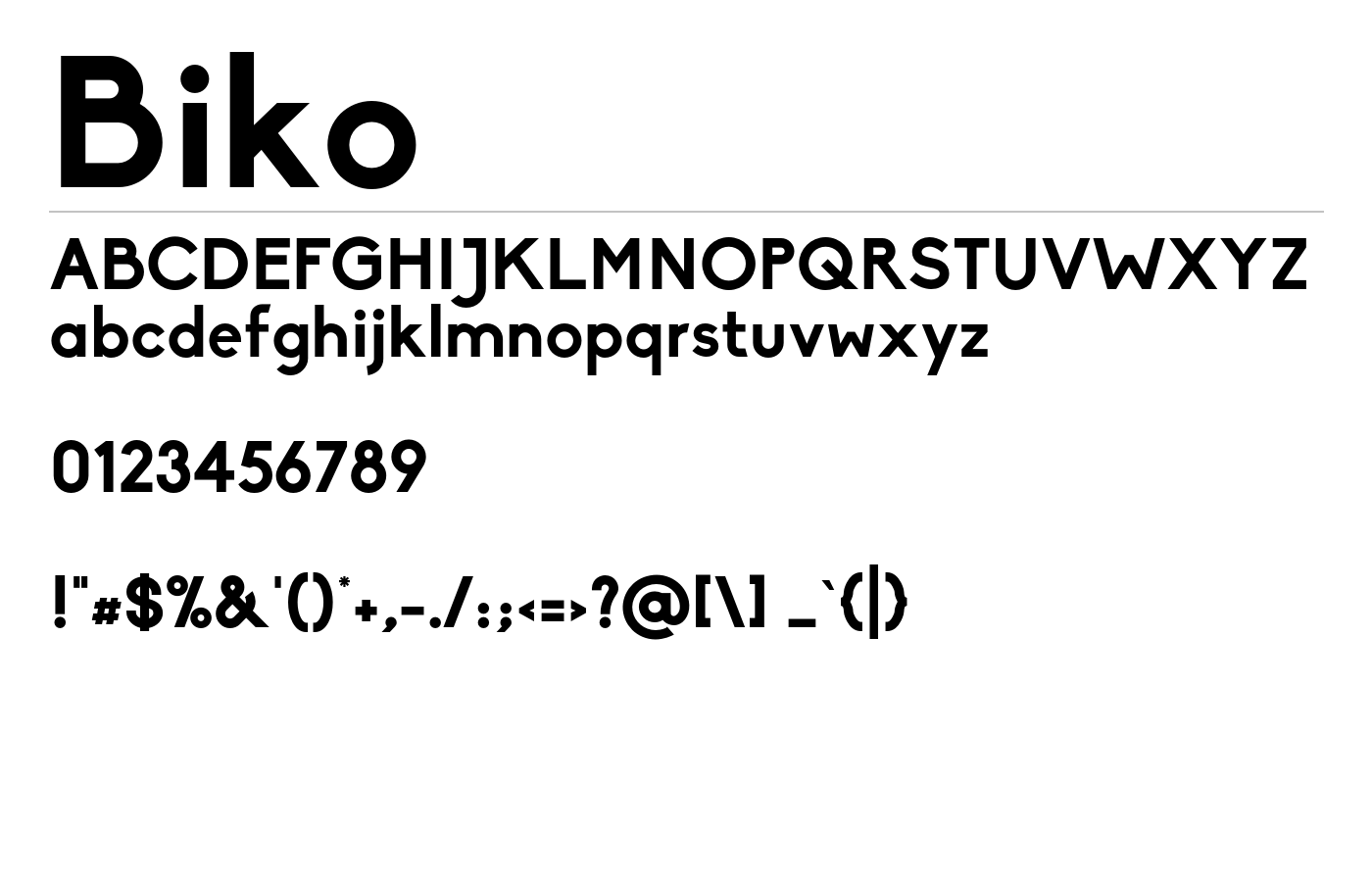
Biko is a bold, modern sans serif font with a strong geometric structure and clean, rounded shapes that create a friendly yet assertive feel. Its high x-height and balanced proportions make it highly readable and ideal for headlines, branding, and digital use where clarity and impact are key. This font works well for contemporary brands looking to convey confidence and approachability.
Biko Font
About Biko Font